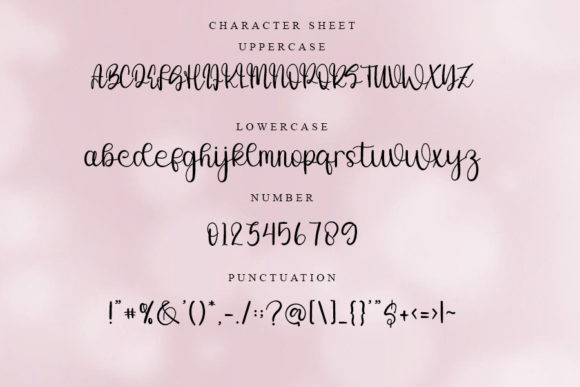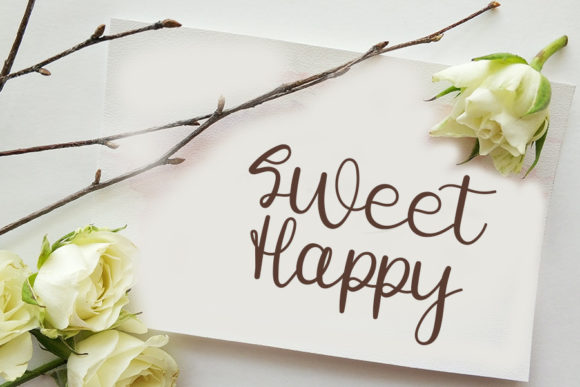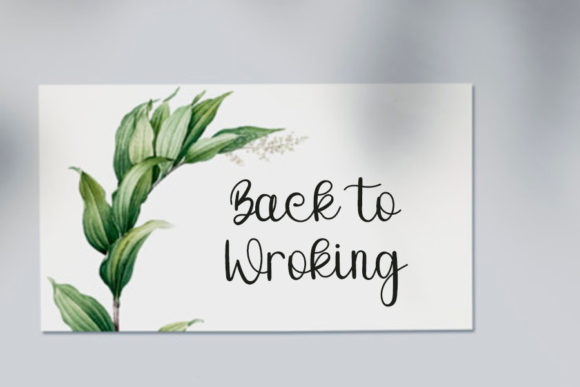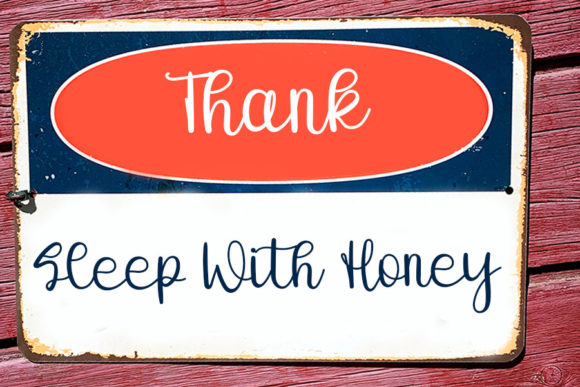
The Goodnight Font: A Designer’s New Best Friend
I’ll never forget the late nights spent working on a project, staring at my screen, and wondering if I’d ever find the perfect font. It was for a wedding invitation design, and I wanted something that exuded elegance, romance, and a touch of whimsy. That’s when I stumbled upon the Goodnight font. It was love at first sight! ✨ In this article, I’ll share my experience with this beautiful cursive script, its features, and how to make the most of it in your designs.
- ✨ Well-balanced and elegant: Goodnight has a beautiful flow, making it perfect for a wide range of design projects, from wedding invitations to branding and packaging.
- ✅ Versatile: This font can be used for both digital and print projects, and its clarity remains intact even at smaller sizes.
- 💫 Unique character: Goodnight has a distinct personality that sets it apart from other cursive scripts, making your designs stand out.
While Goodnight is an amazing font, there are a few things to keep in mind: 🤔
- ⚠️ Not ideal for body text: Due to its cursive nature, Goodnight might not be the best choice for large blocks of text. It’s better suited for headings, titles, and short paragraphs.
- ⚠️ Limited use of all-caps: While Goodnight does have all-caps characters, they might not be as visually appealing as the lowercase letters. Use them sparingly.
The Story Behind Goodnight
Goodnight was designed with the intention of creating a beautiful, elegant script that could be used for a wide range of design projects. The designer aimed to craft a font that was both refined and approachable, making it perfect for creative professionals and hobbyists alike. While the actual story behind Goodnight might not be well-documented, its versatility and charm have made it a favorite among designers.
Q: What type of projects is Goodnight best suited for?
A: Goodnight is a versatile font that can be used for various design projects, including wedding invitations, branding, packaging, and more.
Q: Does Goodnight support OpenType features?
A: Yes, Goodnight supports OpenType features, including stylistic alternates and glyphs, which can be accessed in compatible design software.
Q: Can I use Goodnight for digital and print projects?
A: Absolutely! Goodnight is a high-quality font that remains clear and legible in both digital and print formats.